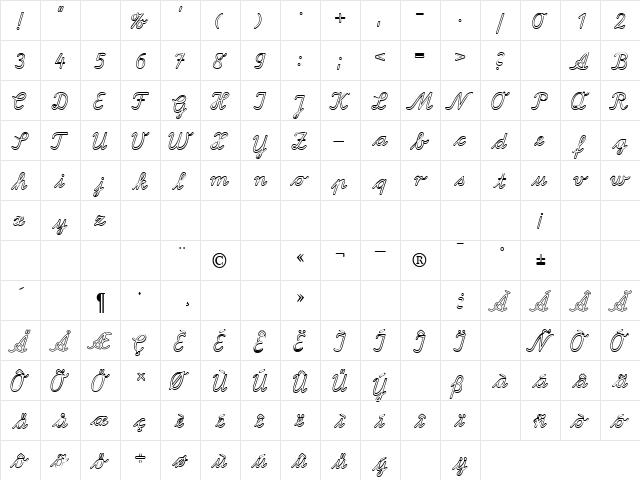
LA Outline DB Normal
Design Context for LA Outline DB Typeface
LA Outline DB brings ornamental detail and strong personality to headlines and identities, where visual impact matters more than quiet functionality.
Font Pairing: Pair with a clean neutral sans-serif for body copy to let LA Outline DB's character lead without overwhelming the composition.
Pro Tip: Use LA Outline DB exclusively at display sizes — it was designed to be seen, not read at length. Let a neutral companion handle body copy.